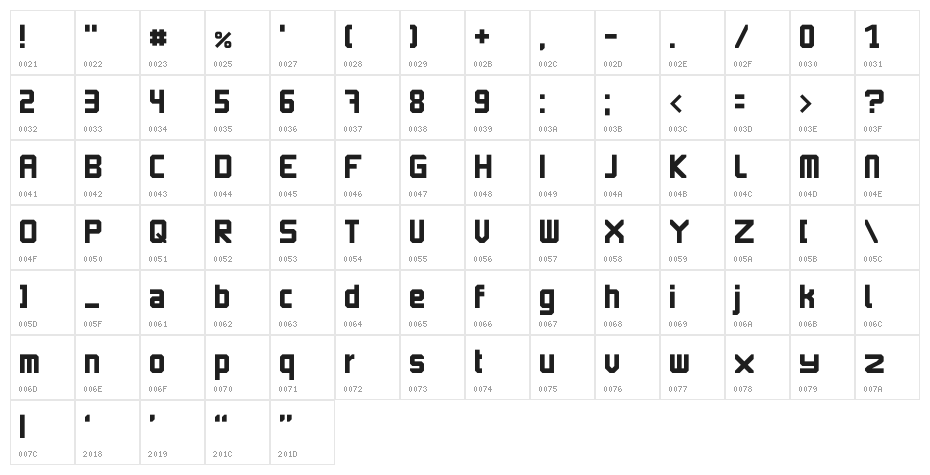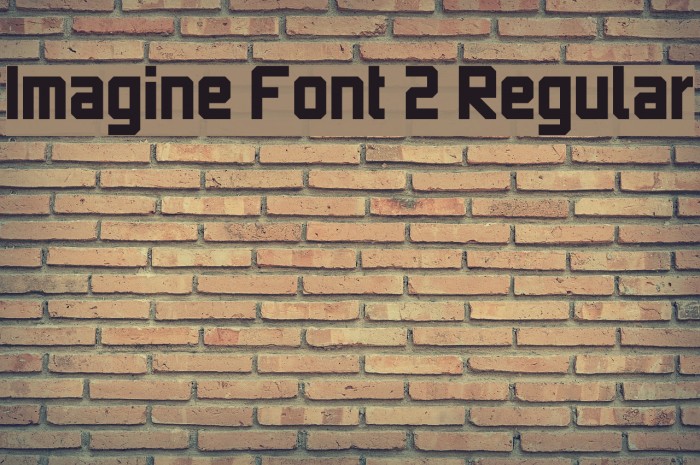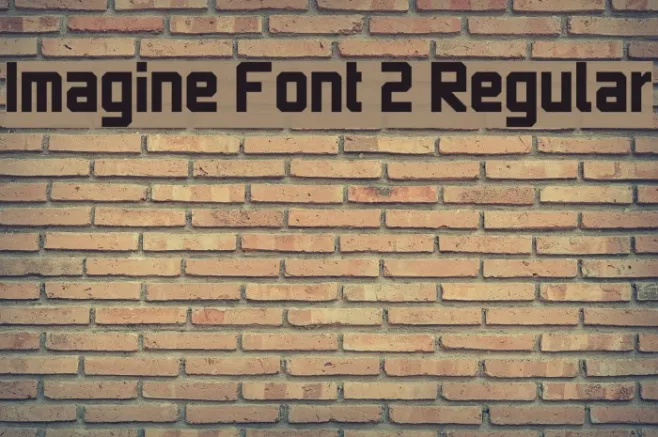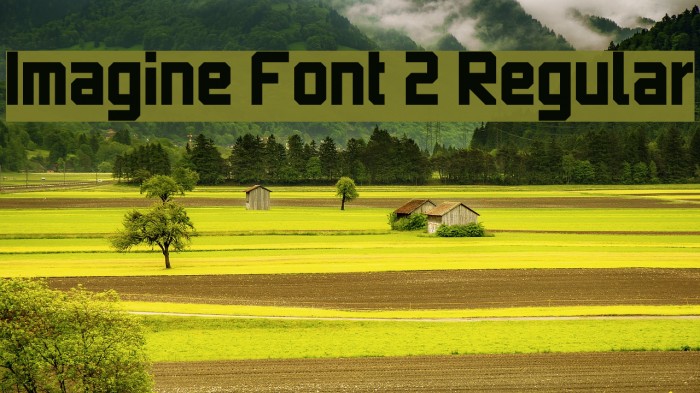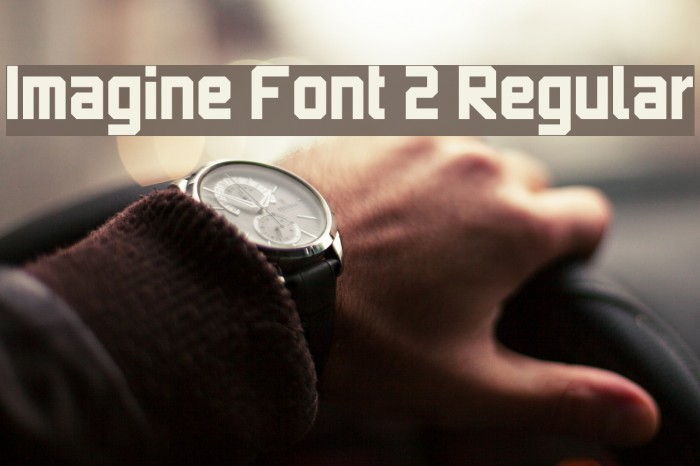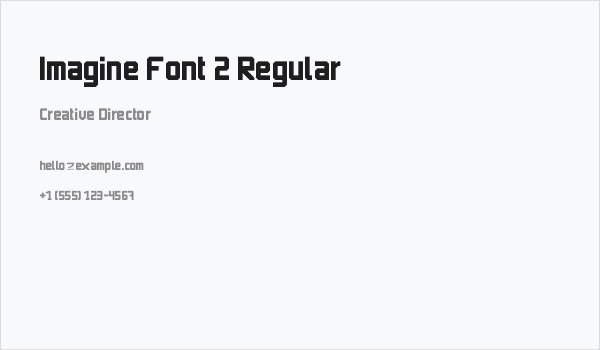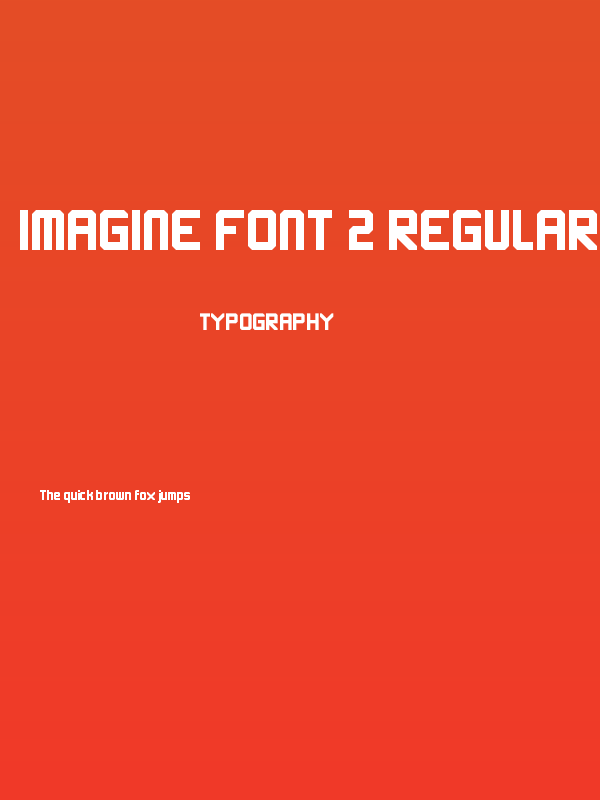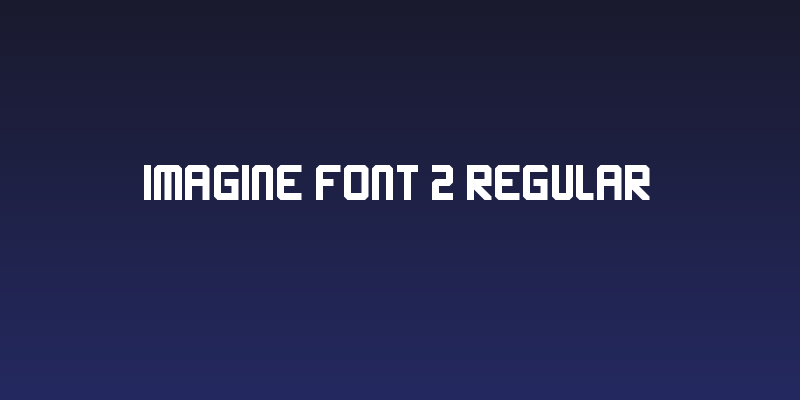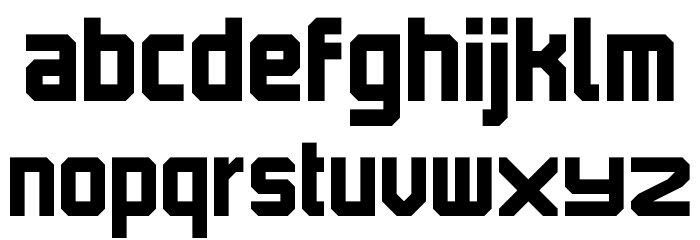
Imagine Font 2 Regular Font
Imagine Font 2 Regular Description
This font features a bold, geometric design with sharp angles and a futuristic aesthetic. The uppercase and lowercase letters maintain a consistent style, characterized by their blocky, angular shapes. The numbers and special characters follow the same design principles, ensuring uniformity across all glyphs. The font's strong presence and unique style make it suitable for projects that require a modern and edgy look. Its distinct appearance is ideal for capturing attention and making a statement.
Proposed ProjectsIdeal for branding, posters, video game titles, and sci-fi themed projects.